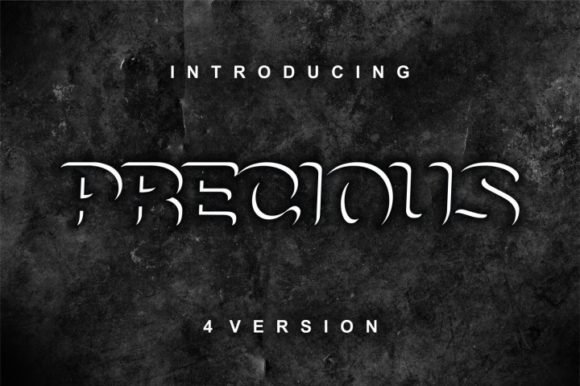
Introduction to Precious Family Font
The Precious is a striking font family.
It comes in four styles; regular, italic, bold, and bold italic The fill color is white, but the shadows make the outline of the letter’s shape.
Precious Family Font offers exceptional quality and versatility, making it a valuable addition to your design toolkit. Whether you’re creating for personal projects or commercial use, Precious Family Font delivers professional results.